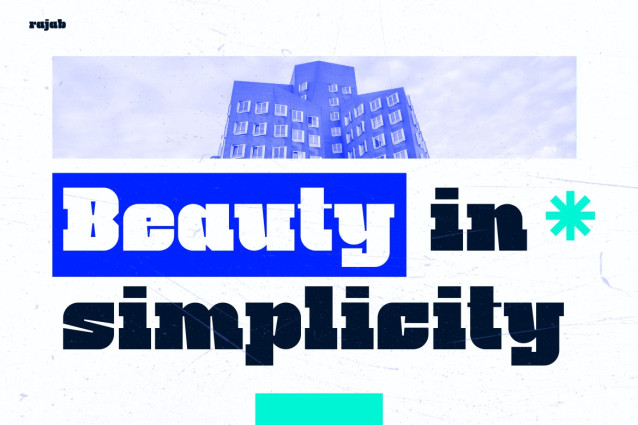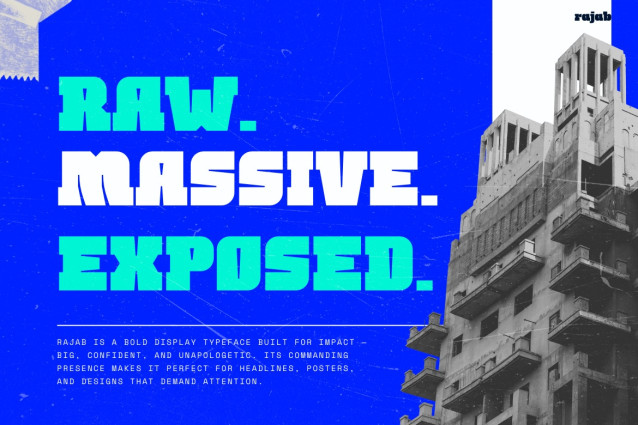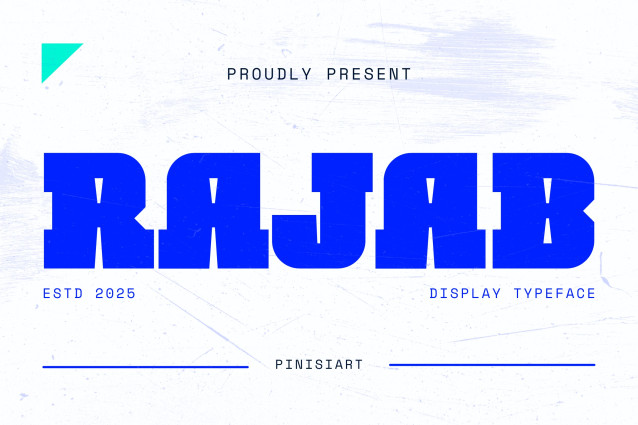
Rajab Font
RAJAB FONT is a bold, modern, and futuristic typeface that captures attention instantly. It features raw geometric edges, massive proportions, and striking aesthetics. Moreover, this font doesn’t just fill space—it dominates it. Each character looks powerful, stylish, and versatile. As a result, it works perfectly for digital branding, social media designs, and strong headlines. RAJAB combines sharp display details with smooth flow, and therefore creates balance between experimental design and readability. In addition, whether you use it in minimal layouts or edgy futuristic themes, your message will always stand out.